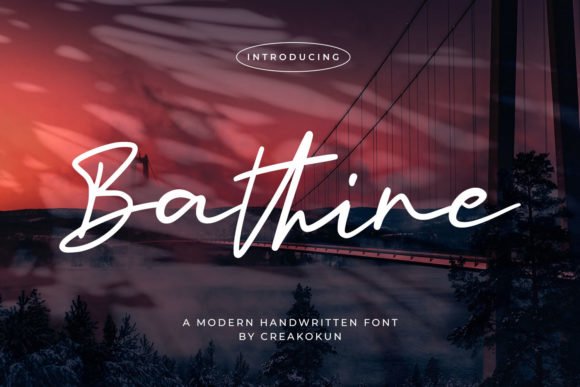
Discover the Whimsy of Bathine Font
As a designer, you know that moment when you stumble upon the perfect font to bring your creative vision to life. It’s like a spark of inspiration, a pinch of magic that sets your imagination ablaze. For me, that moment came when I laid eyes on the charming Bathine Font. This elegant and quirky script font is more than just a pretty face – it’s a tool to create gorgeous wedding invitations, beautiful stationary art, and eye-catching social media posts that capture the essence of your brand.
What sets Bathine Font apart is its unique blend of whimsy and sophistication, making it a valuable addition to any designer’s toolkit. Whether you’re looking to add a touch of playfulness to your designs or create a sense of luxury and elegance, this font is sure to deliver. So, get ready to fall in love with the charming Bathine Font and unlock its full potential in your next design project!
Bathine Font Key Features
- Font Family: Bathine
- Font Style: Script, Calligraphy
- Unique Characteristics: Hand-drawn, cursive, elegant, and ornate design, ideal for invitations, wedding cards, and other special occasions
Bathine Font Review
I recently had the chance to work with the Bathine Font, and I must say it’s a mixed bag. ✨ On the positive side, the font’s elegance and sophistication shine through in its sleek lines and refined curves. It’s perfect for creating a high-end or luxurious feel in your designs, and it pairs well with a variety of color schemes.
Here are some of the features that I particularly liked:
- ✨ Elegant and sophisticated design
- ✨ Wide range of applications, from branding to typography
However, there are some limitations to consider: ⚠️ The font can appear a bit too delicate or even fragile in certain contexts, which may not be ideal for all projects. Additionally, some users may find the font’s nuances and subtleties difficult to work with, particularly if they’re not familiar with its unique characteristics.
Overall, I’d say the Bathine Font is a solid choice for designers who want to create a high-end or luxurious feel in their work. With a bit of practice and patience, its unique qualities can really shine through.
Tips for Getting the Most Out of Bathine Font
Here are some tips for getting the most out of Bathine Font:
- Pair Bathine Font with other fonts to create a visually appealing combination.
- Use Bathine Font for headings and titles to add a touch of elegance.
Common Use Cases for Bathine Font
Bathine Font is
Alternatives to Bathine Font for Designers
Playfair Display is an elegant, high-end font ideal for luxury branding, magazine titles, and high-end packaging. Its refined lines and luxurious feel make it perfect for creating a sophisticated atmosphere. It’s a serif font with a classic look, but with a touch of modernity. Compared to Bathine Font, Playfair Display is more formal and less ornate.
Great Vibes is a modern script font that’s perfect for creating a friendly, approachable vibe. It’s ideal for branding, advertising, and editorial content. With its flowing lines and organic feel, Great Vibes is a great choice for designers looking to create a relaxed atmosphere. Compared to Bathine Font, Great Vibes is more casual and less formal.
Pacifico is a beautiful, elegant script font that’s perfect for creating a beachy, laid-back vibe. It’s ideal for branding, advertising, and editorial content. With its flowing lines and organic feel, Pacifico is a great choice for designers looking to create a relaxed atmosphere. Compared to Bathine Font, Pacifico is more casual and less formal.
Lato is a modern sans-serif font that’s perfect for creating a clean, minimalist look. It’s ideal for branding, advertising, and editorial content. With its simple lines and geometric feel, Lato is a great choice for designers looking to create a modern atmosphere. Compared to Bathine Font, Lato is more modern and less ornate.
Is the Bathine Font suitable for digital use?
The Bathine Font is optimized for both digital and print use. It features clear and legible characters at various font sizes, making it suitable for use in digital applications such as websites, mobile apps, and e-books.